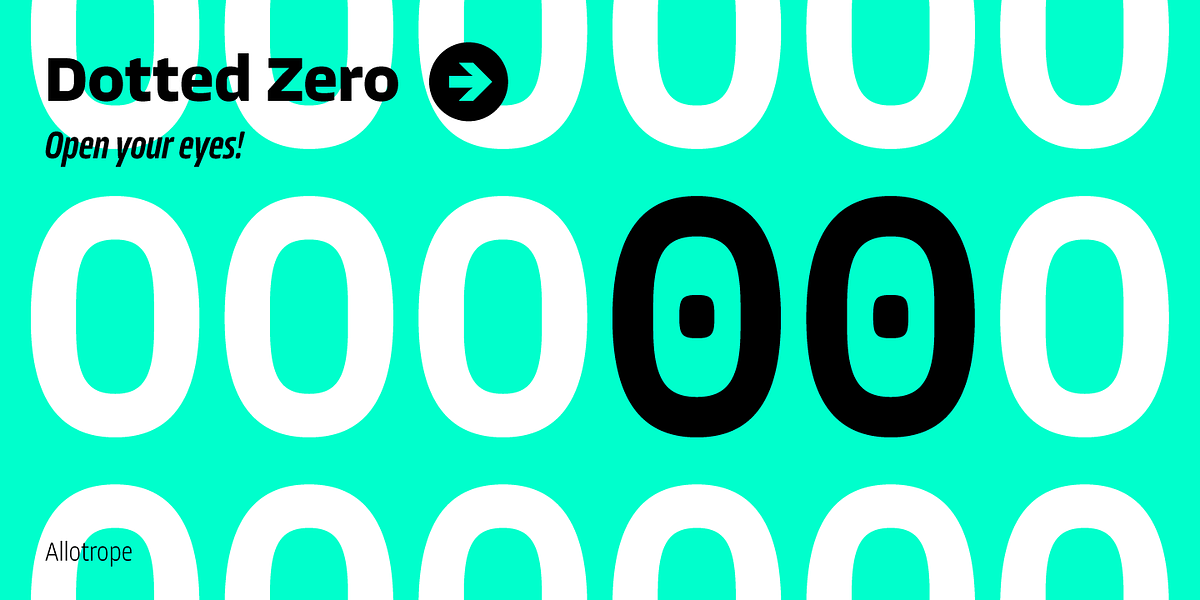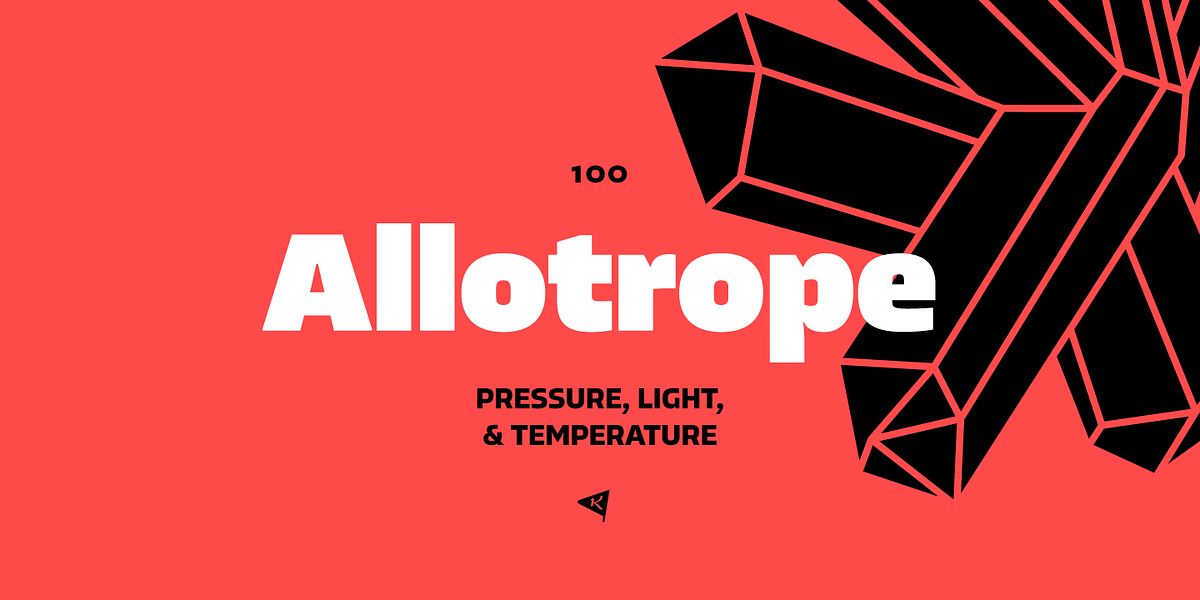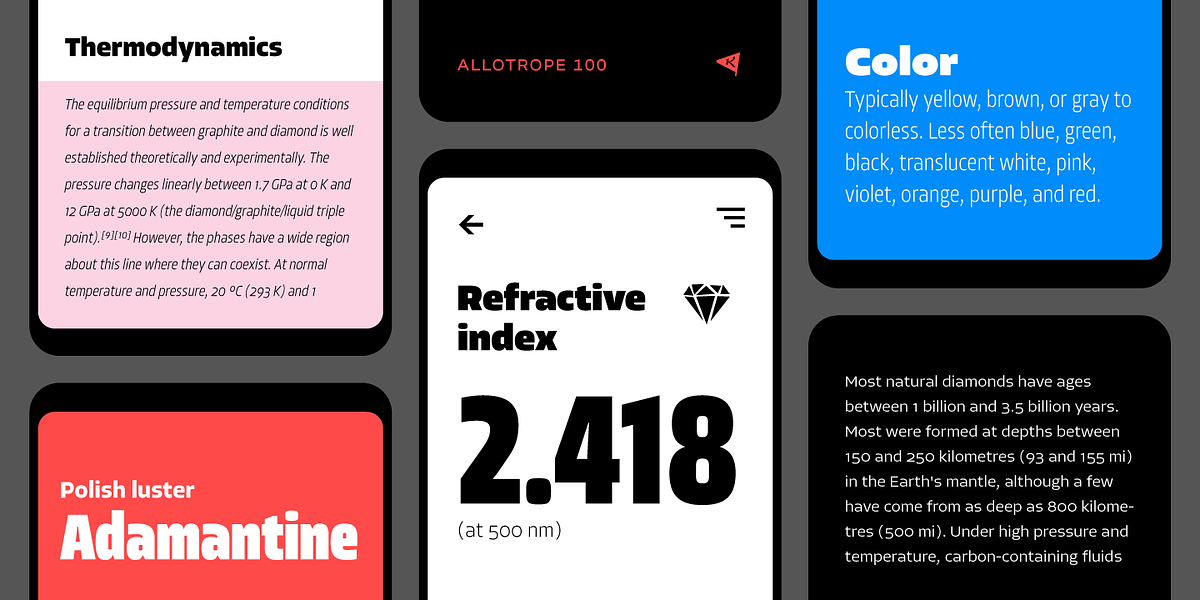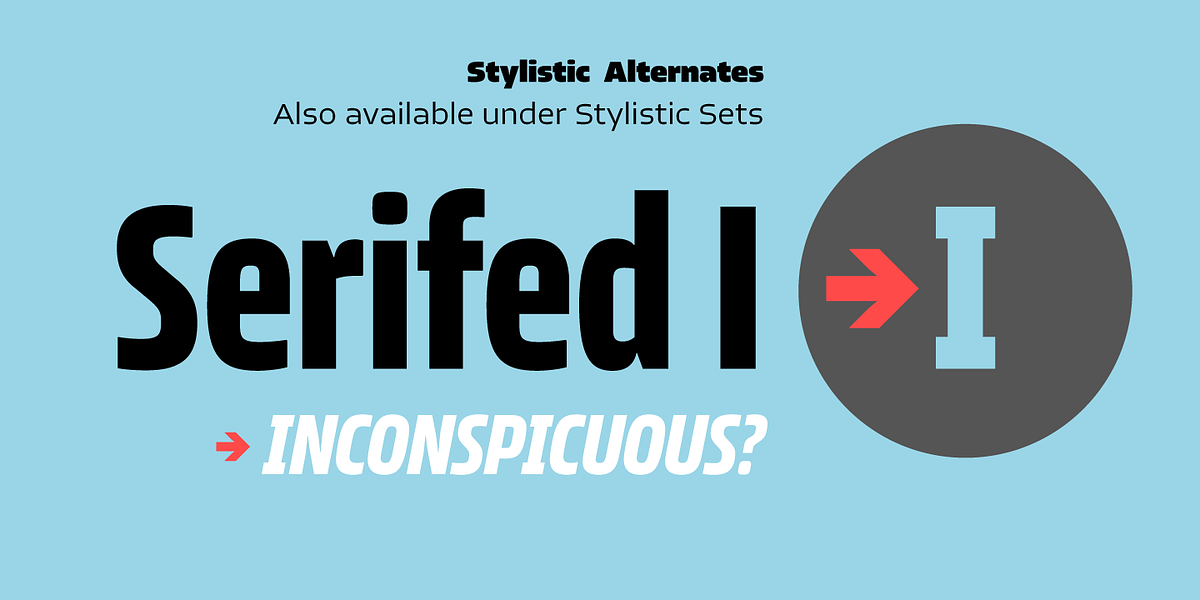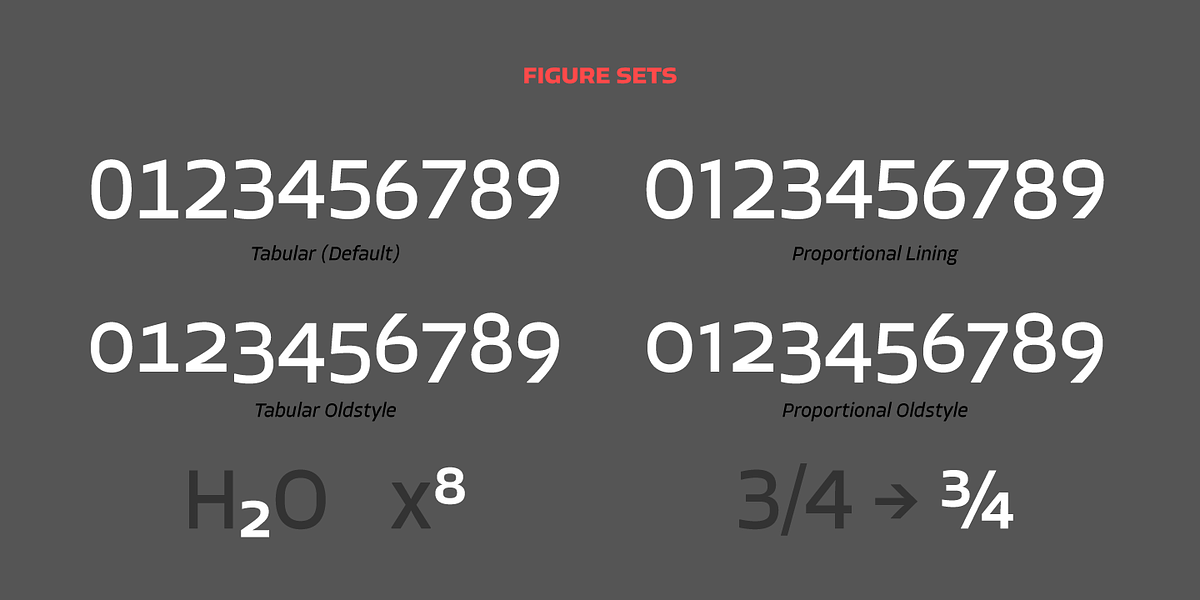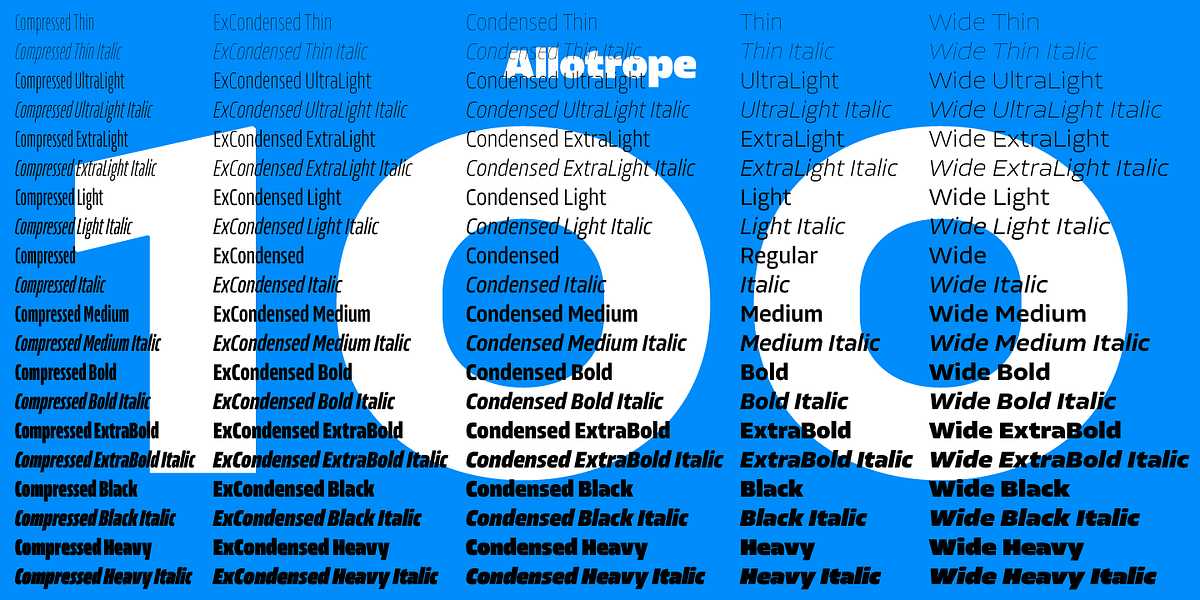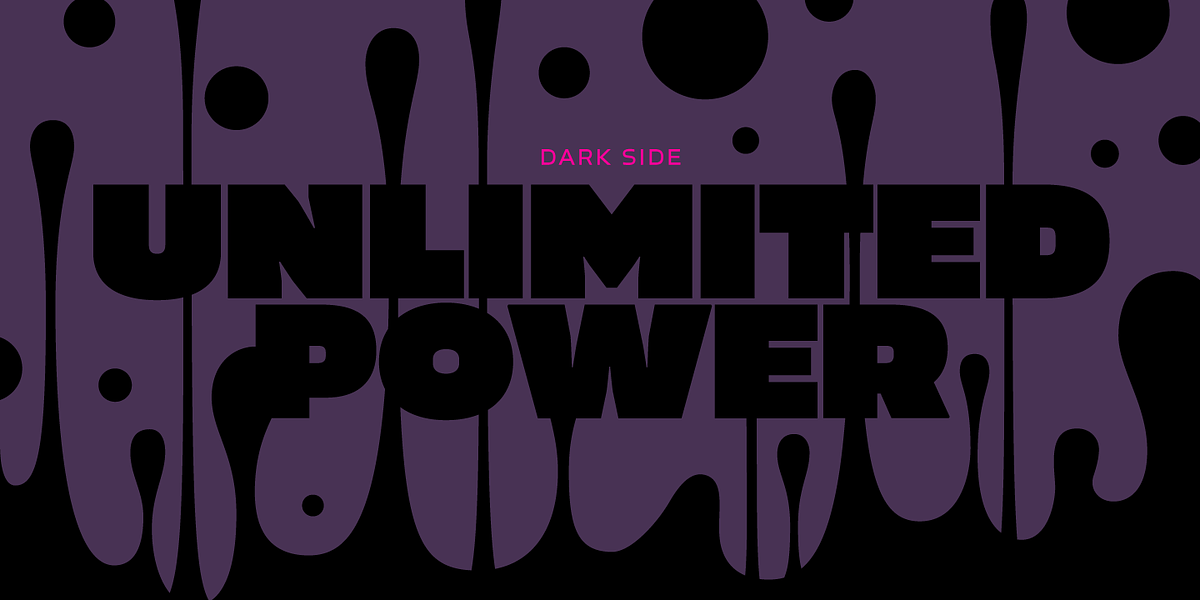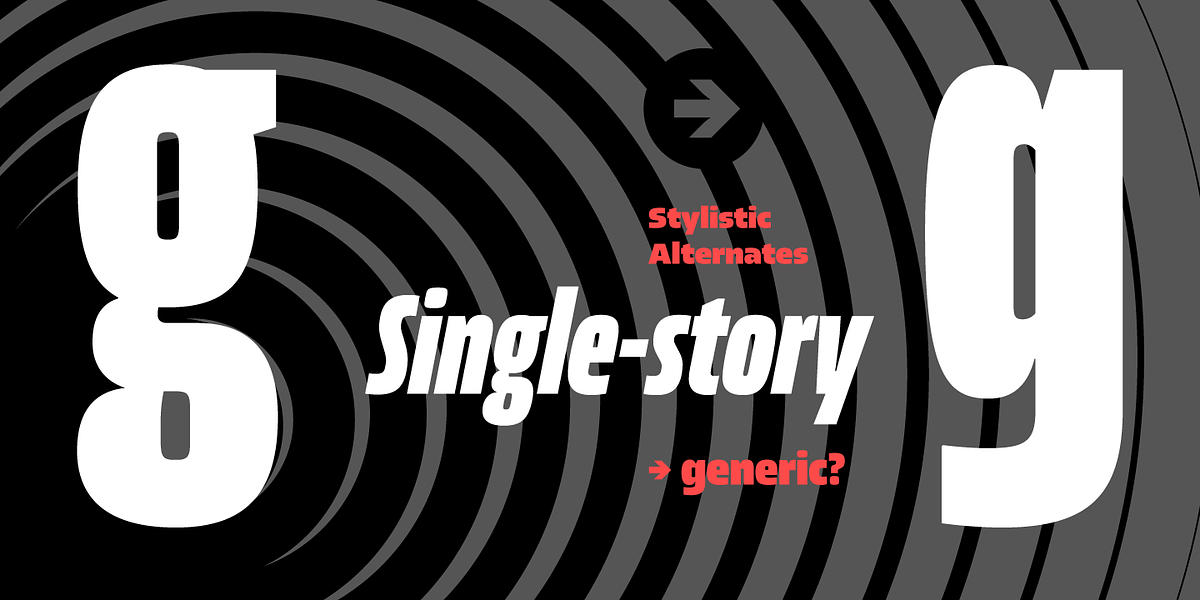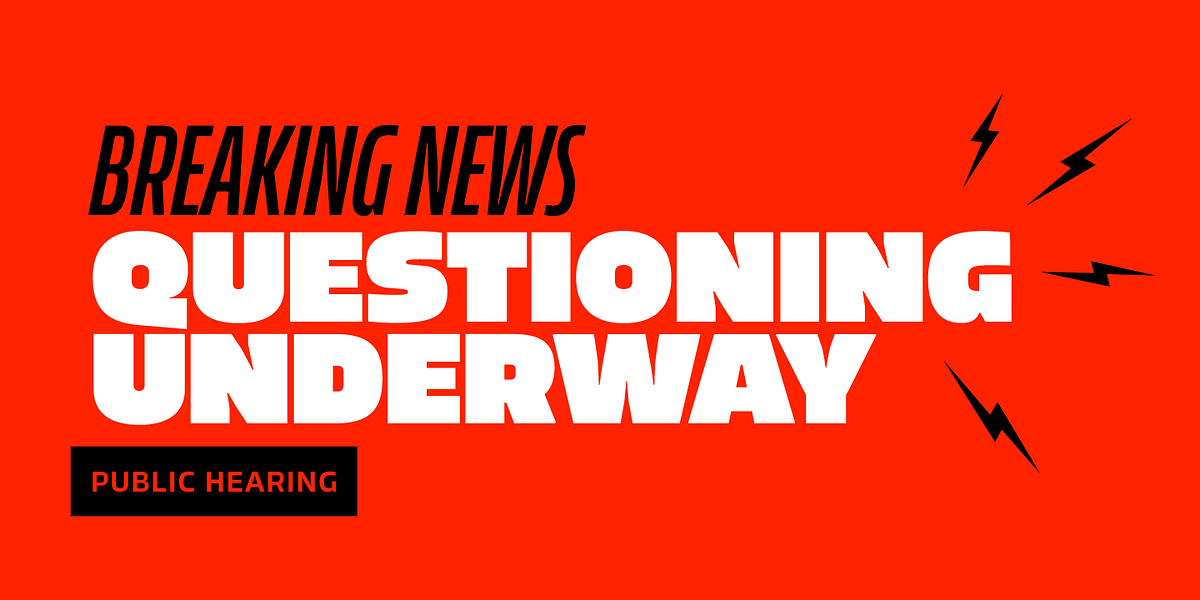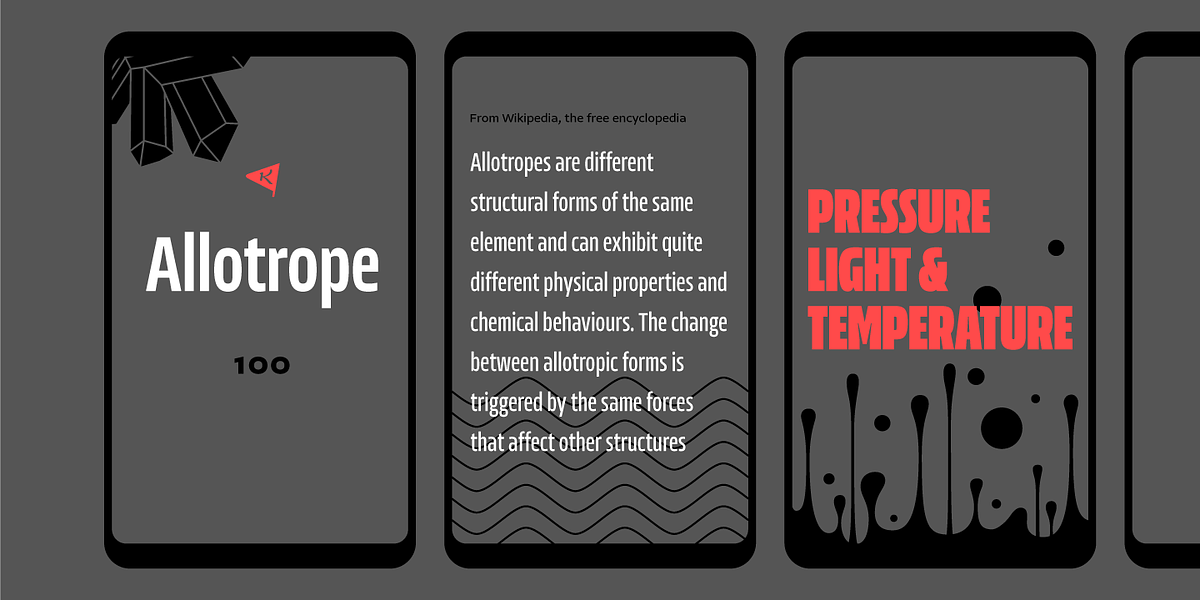
Allotrope
This humanist sans-serif typeface offers a wide range of weights and widths, making it suitable for various applications. Its design emphasizes readability and a modern aesthetic. The inclusion of stylistic alternates like a single-story 'g', serifed capital 'I', and dotted zero adds versatility for specific design needs. The font supports Western, Central European, and Turkish languages.